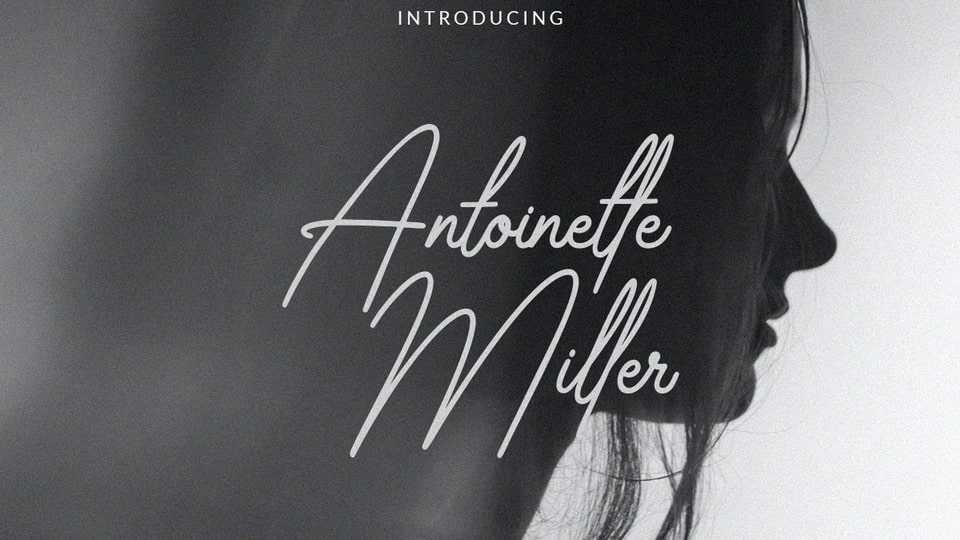
Download Antoinette Miller font, a sweet script typeface with legibility and authenticity. Use it for any design project that requires a personalized appearance!